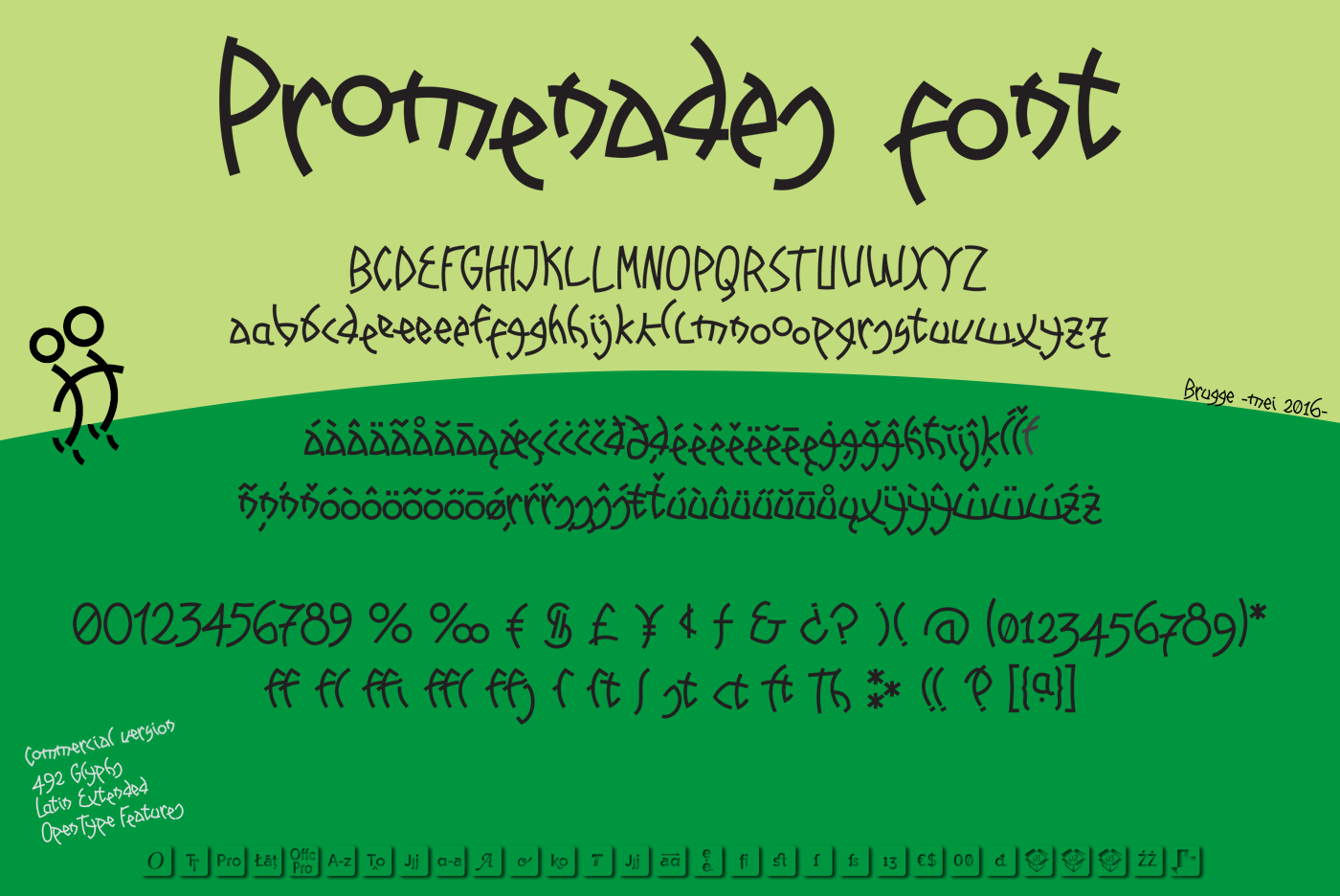
Introduction to Promenades Font
Have you ever stumbled upon a unique design element that sparks your creativity and sets your imagination ablaze? For designers, these moments can be game-changers, providing the perfect inspiration for a new project or the solution to a design puzzle. For me, that moment came in May 2016, during a leisurely walk through the charming Belgian city of Bruges.
As I strolled along the cobblestone streets, I chanced upon a beautifully crafted font carved into a stone at the side of the road. Its unique, handwritten style captivated me, and I knew I had to recreate it. After some careful observation and note-taking, I decided to digitize this font and share it with the world as the Promenades Font.
Key Features of Promenades Font
- Unique, hand-drawn design perfect for creative projects and adding a personal touch
- Ideal for use in digital designs, including logos, posters, and social media graphics
- Perfect for designers looking for a unique, high-quality font to elevate their creative project
Honest Review: Promenades Font
I recently stumbled upon the Promenades Font while searching for a design resource for a creative project. I was drawn to its unique, elegant style and decided to give it a try. Overall, I was quite impressed with the font’s quality and versatility.
- ⚠️ The font may not be suitable for all design projects, particularly those that require a more modern or bold aesthetic.
- ⚠️ Some users may find the font’s style too ornate or distracting, depending on the context in which it’s used.
Overall, I’m quite pleased with the Promenades Font and would recommend it to designers who are looking for a high-quality, elegant font for their creative projects. While it may have some limitations, I believe its benefits far outweigh its drawbacks.
The Promenades Font is ideal for a variety of creative projects, including wedding invitations, business cards, and social media graphics. Its elegant design and high-quality font make it a popular choice among designers and creatives.